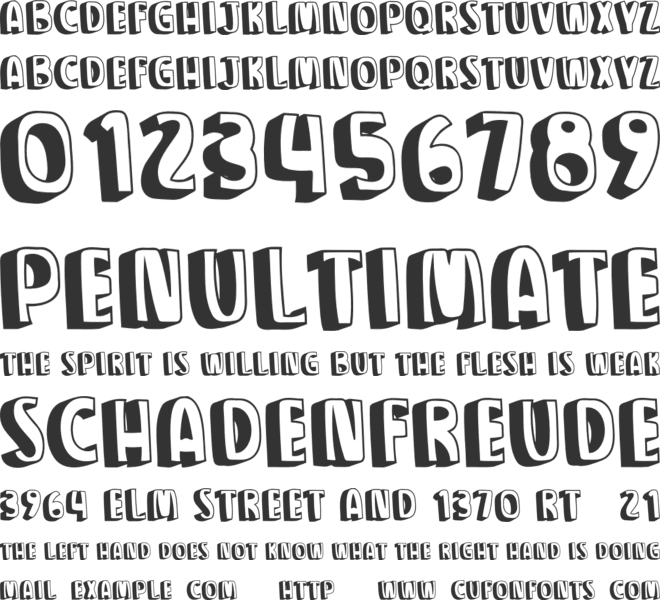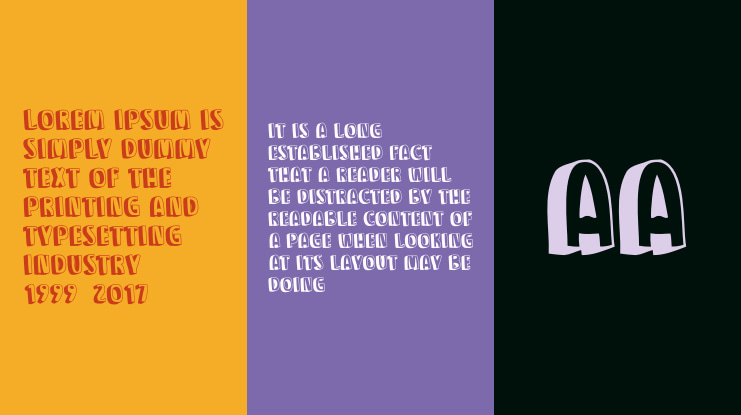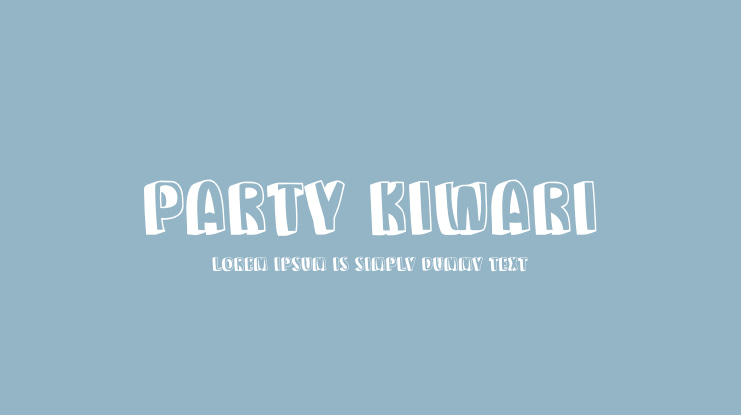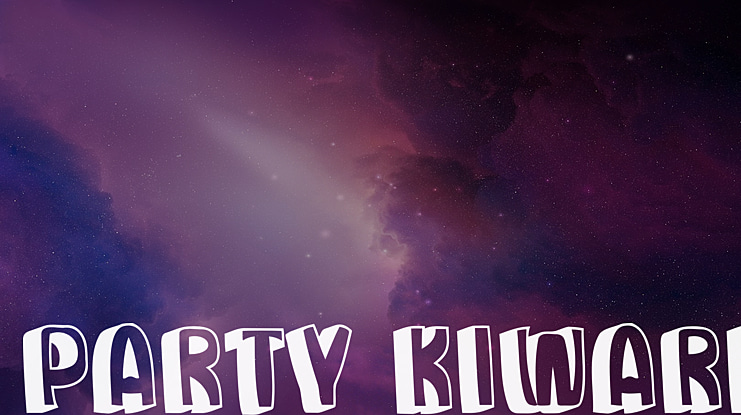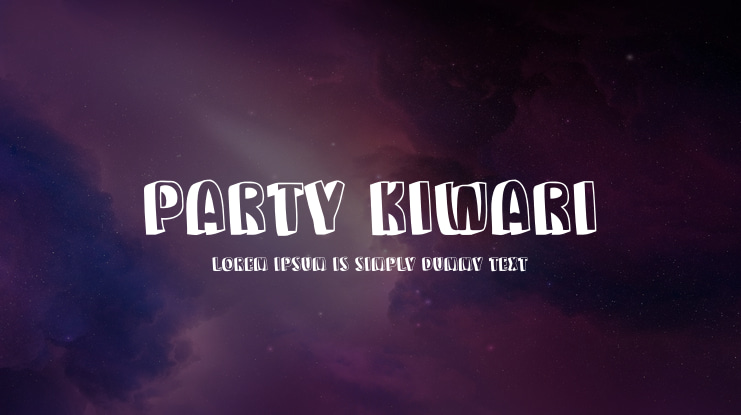
Party Kiwari Font
Party Kiwari is a fun display typeface. It will lift your design and add a cheeky touch to each of your creations. Use this font for your designs and explore its endless possibilities.